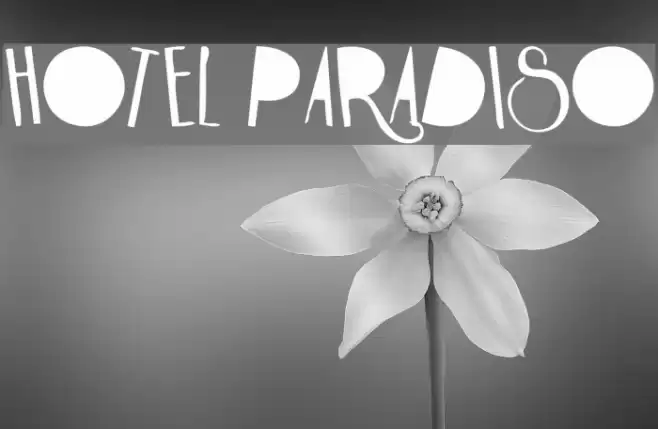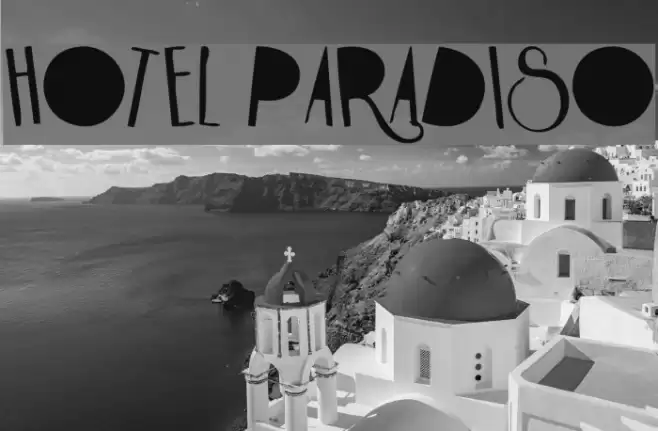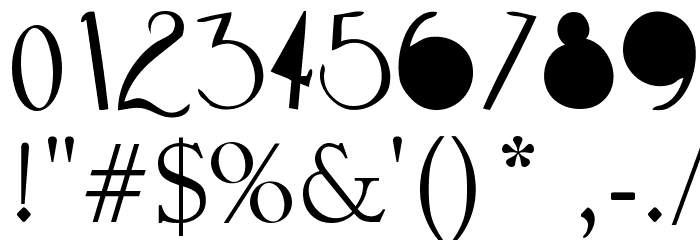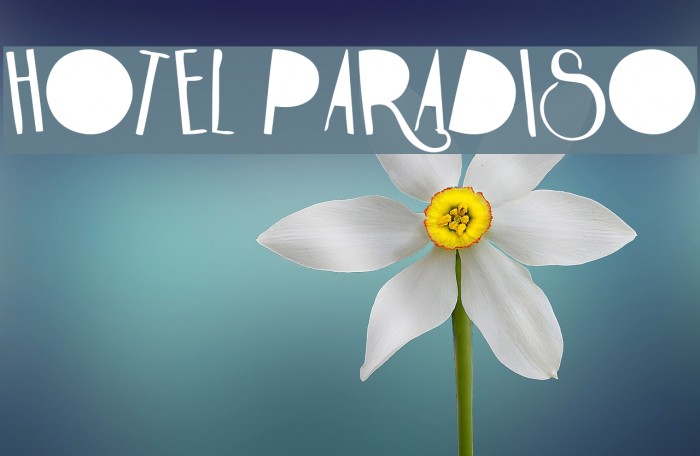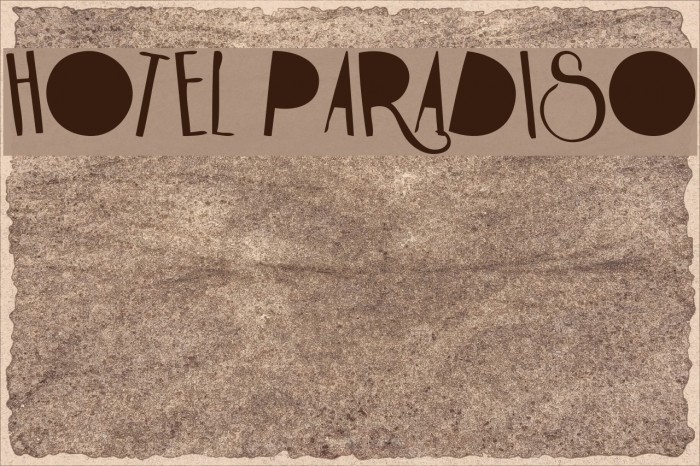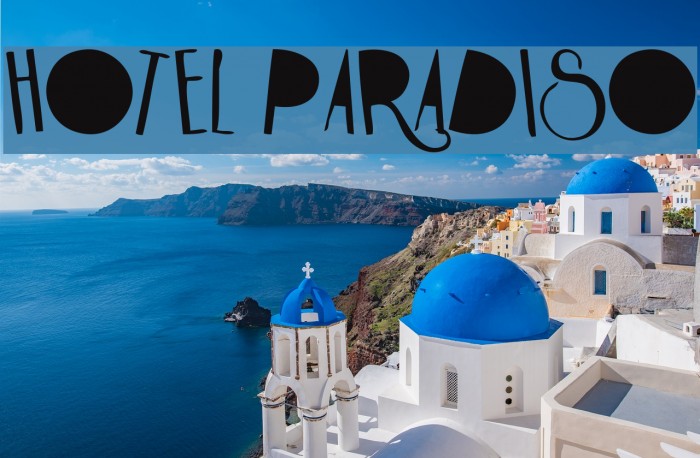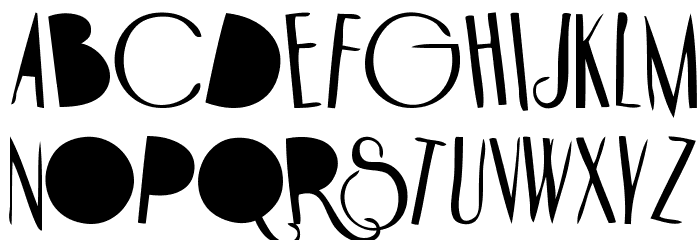
HOTEL PARADISO Font
HOTEL PARADISO Description
This font features a playful and whimsical style, characterized by its bold and rounded letterforms. The uppercase letters are particularly striking, with some characters having exaggerated curves and unique flourishes, such as the 'Q' and 'R'. The lowercase letters maintain a consistent style, complementing the uppercase with their own quirky charm. Numbers are bold and rounded, ensuring readability while maintaining the font's playful aesthetic. Special characters are designed to match the overall style, with a mix of boldness and elegance. The font's distinct personality makes it suitable for creative and fun projects.
A bold, playful font with rounded, whimsical letterforms and unique flourishes from Distorted Eroded fonts.
- Proposed Projects: Ideal for children's books, playful branding, party invitations, and creative posters.
- Overall Style: Playful, Whimsical